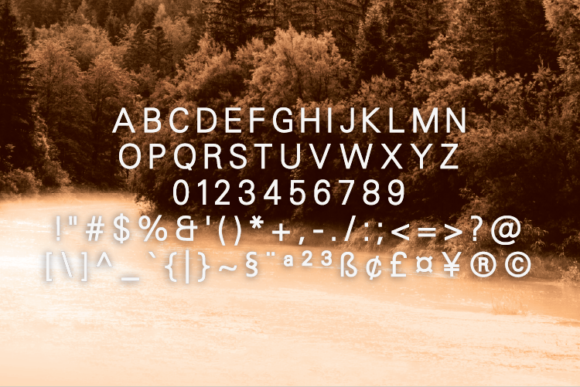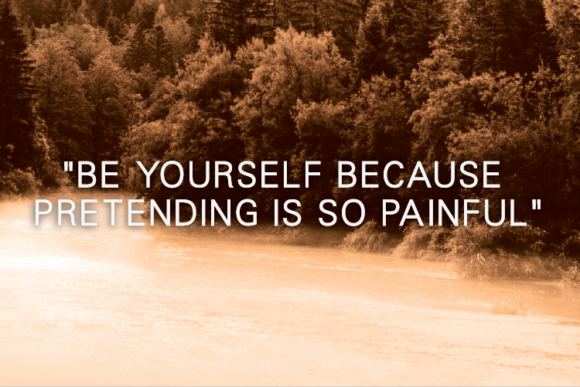
Introduction to Oldleine Font
As designers, we’ve all been there – staring at a blank canvas, waiting for inspiration to strike. It’s in these moments that the right font can make all the difference. Imagine being able to craft a stunning logo, a captivating poster, or an elegant invitation with just a few clicks. For those looking to elevate their creative projects, the Oldleine Font is an ideal choice. This sleek and simple sans-serif font is designed to bring a touch of sophistication to any design.
With its clean lines and minimalist aesthetic, the Oldleine Font is perfect for designers seeking a high-quality design resource that’s easy to work with. Whether you’re working on a branding project, product packaging, or a t-shirt design, this font is sure to deliver. Plus, its transparent background makes it a breeze to use, even for those with limited design experience.
Key Features of Oldleine Font
- High-quality, professional design ideal for creative projects and design resources.
- Includes a range of styles and weights, offering versatility for different design applications.
- Designed with a unique aesthetic, making it a standout design resource for creative projects.
Honest Review: Oldleine Font
I recently came across the Oldleine Font, a free download that caught my eye due to its unique and elegant design. As a designer, I’m always on the lookout for high-quality design resources that can elevate my creative projects.
The Oldleine Font offers a transparent background, which makes it versatile and easy to use in various design contexts. I appreciate how this feature allows for a seamless integration with other design elements.
- ✨ Elegant and sophisticated design aesthetic
- ✨ Highly customizable for different creative projects
- ⚠️ Limited font styles and variations available
- ⚠️ May not be suitable for complex, multi-line text applications
Overall, the Oldleine Font is a great addition to any designer’s toolkit. Its high-quality design and transparent background make it an excellent choice for a wide range of creative projects. While it may have some limitations, I believe its benefits far outweigh its drawbacks.
Tips for Getting the Most Out of Oldleine Font
Use Oldleine Font in a creative project that requires a unique and eye-catching design. This font is perfect for creating a high-quality visual effect with a transparent background. Experiment with different font sizes and colors to get the most out of it.
Oldleine Font is commonly used in design projects that require a unique and eye-catching visual effect. It is perfect for creating a high-quality design with a transparent background. Some common use cases include:
- Posters and banners
- Web design and digital marketing